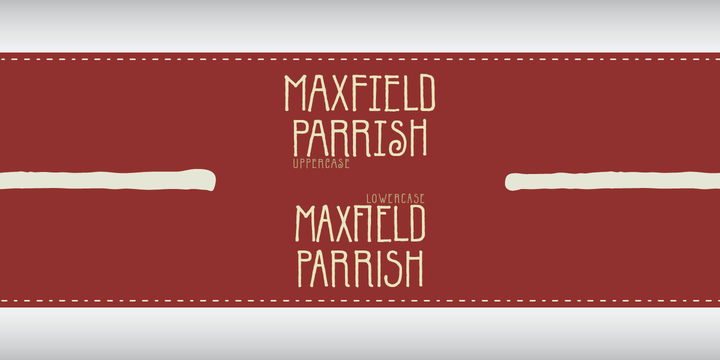
P22 Parrish Hand
from P22
Designed by: Richard Kegler
Designed when: 1999
Design owned by: P22
P22 Parrish
Maxfield Parrish (1870-1966), whose career spanned nearly ninety years, holds a unique place in American art and culture. He was enormously accomplished and successful in both fine art and commercial endeavors. Parrish’s hand-drawn letters were a significant part of his works, which bridged the familiar with a startling otherworldliness. P22 has created the Parrish font set in cooperation with the National Museum of American Illustration.